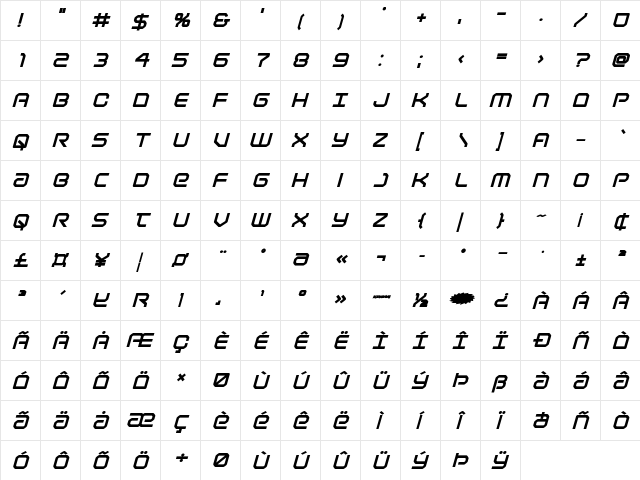
Light Brigade ExtraBold Italic Font Preview
Design Context for Light Brigade ExtraBold Italic Typeface
Light Brigade ExtraBold Italic offers clean, dependable letterforms without strong stylistic allegiance, making it a practical choice for designers who need flexibility. The slanted form adds forward momentum and visual energy. The heavy weight commands attention and anchors typographic hierarchies.
Pro Tip: Use Light Brigade ExtraBold Italic for emphasis, pull quotes, and subheadings where its slanted energy can add rhythm to the layout.